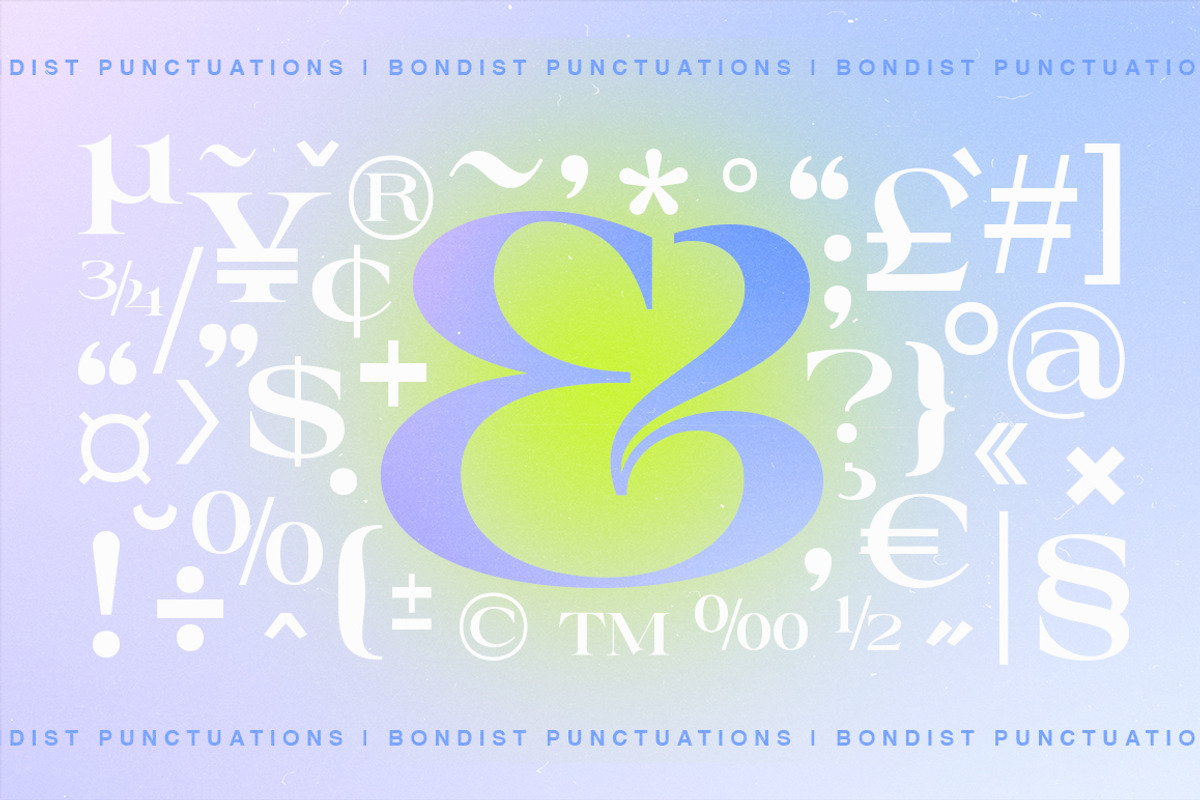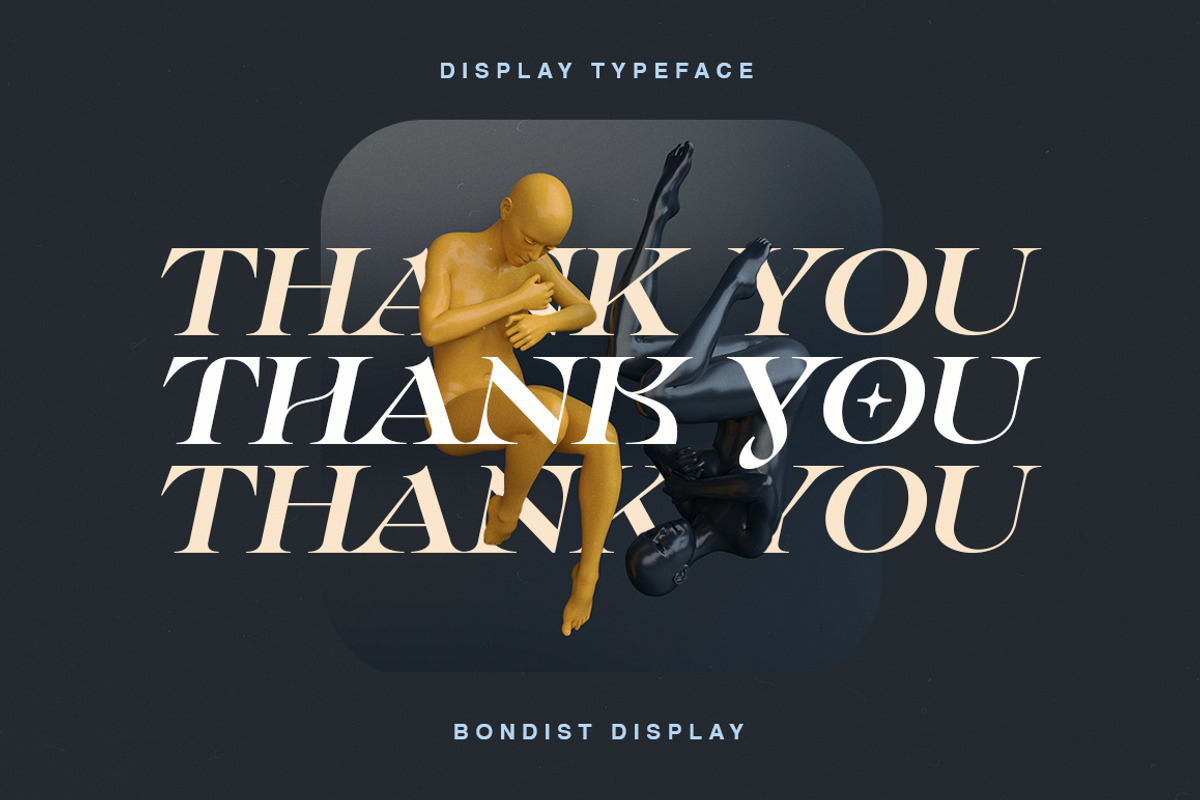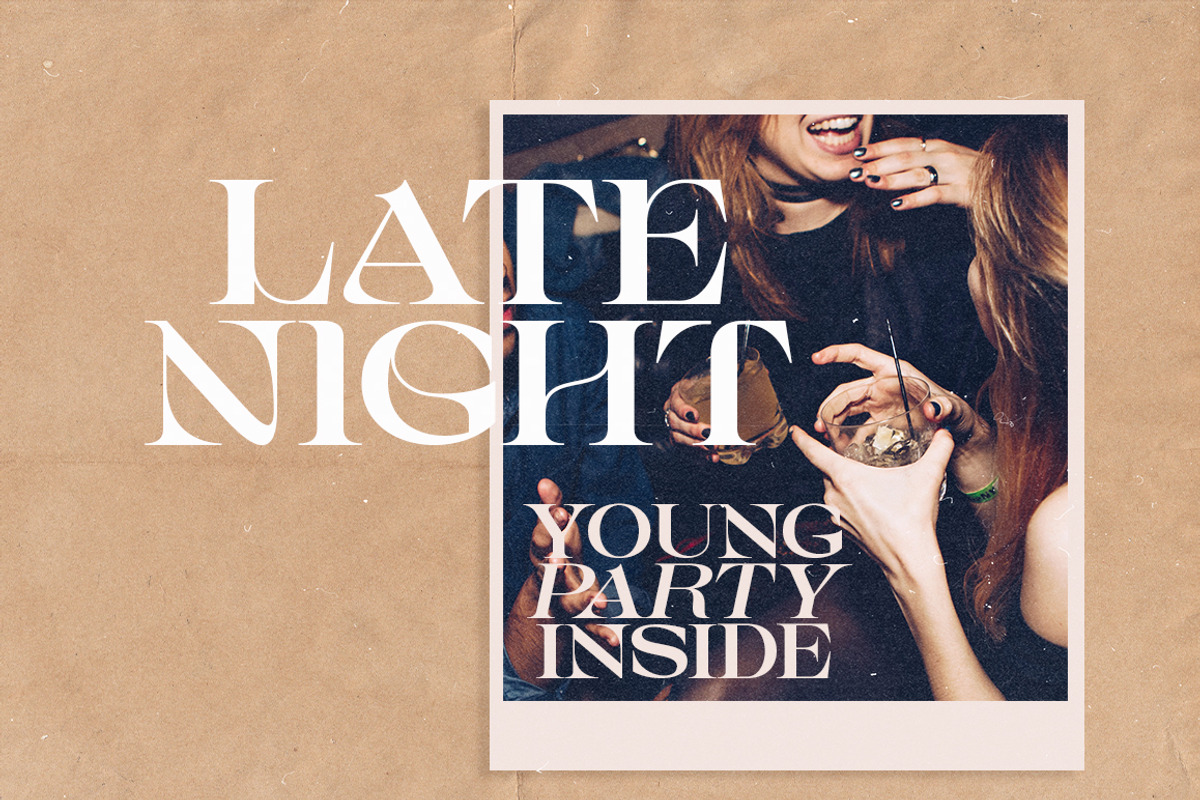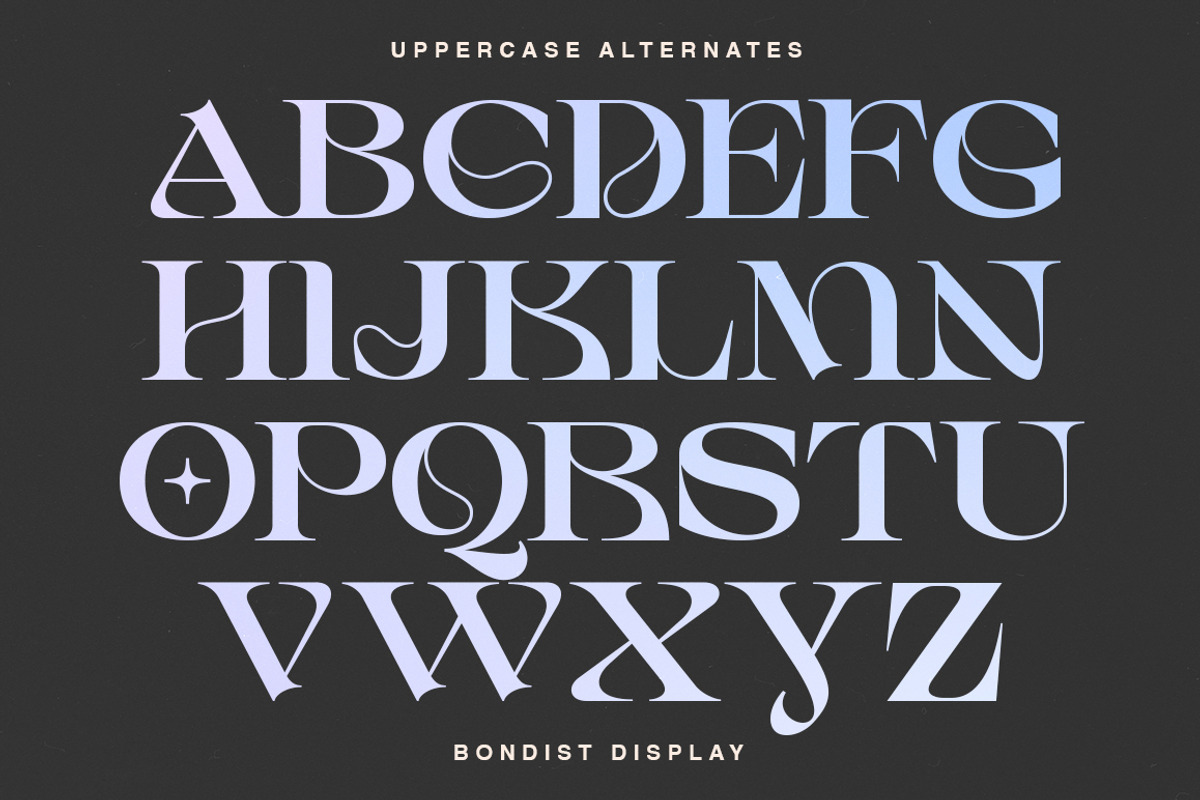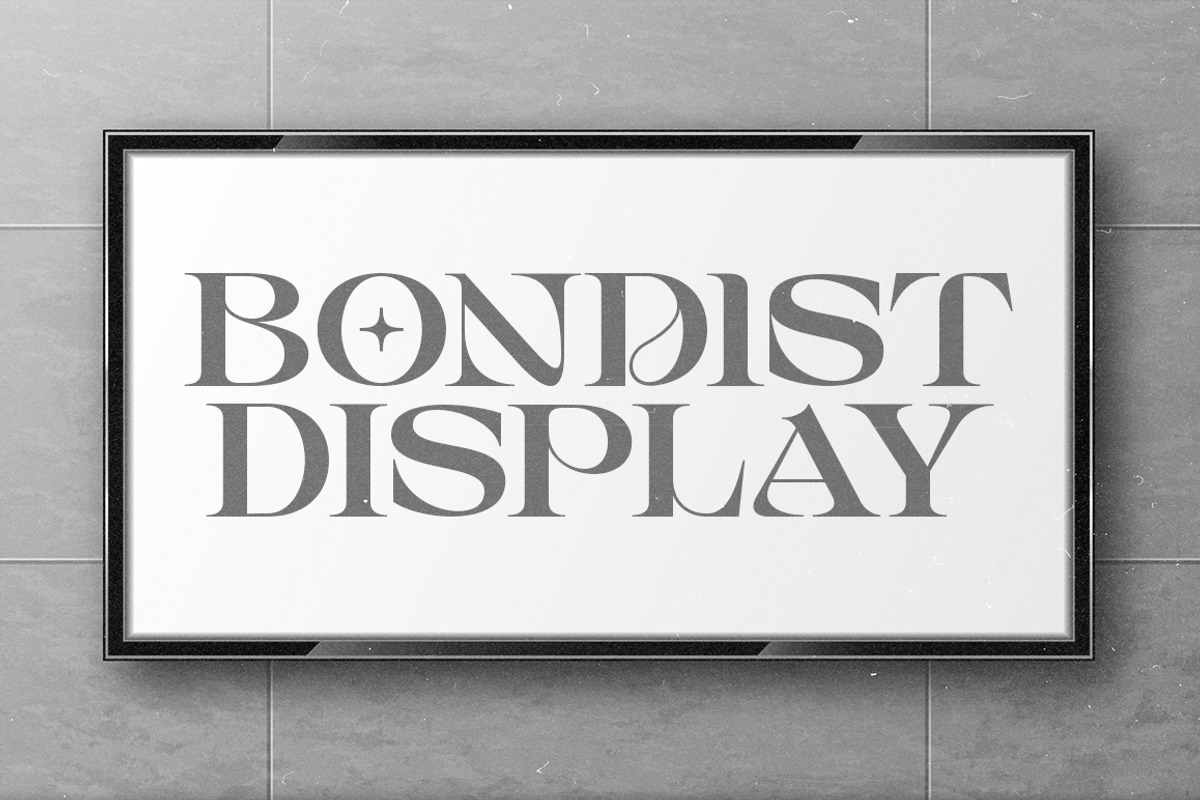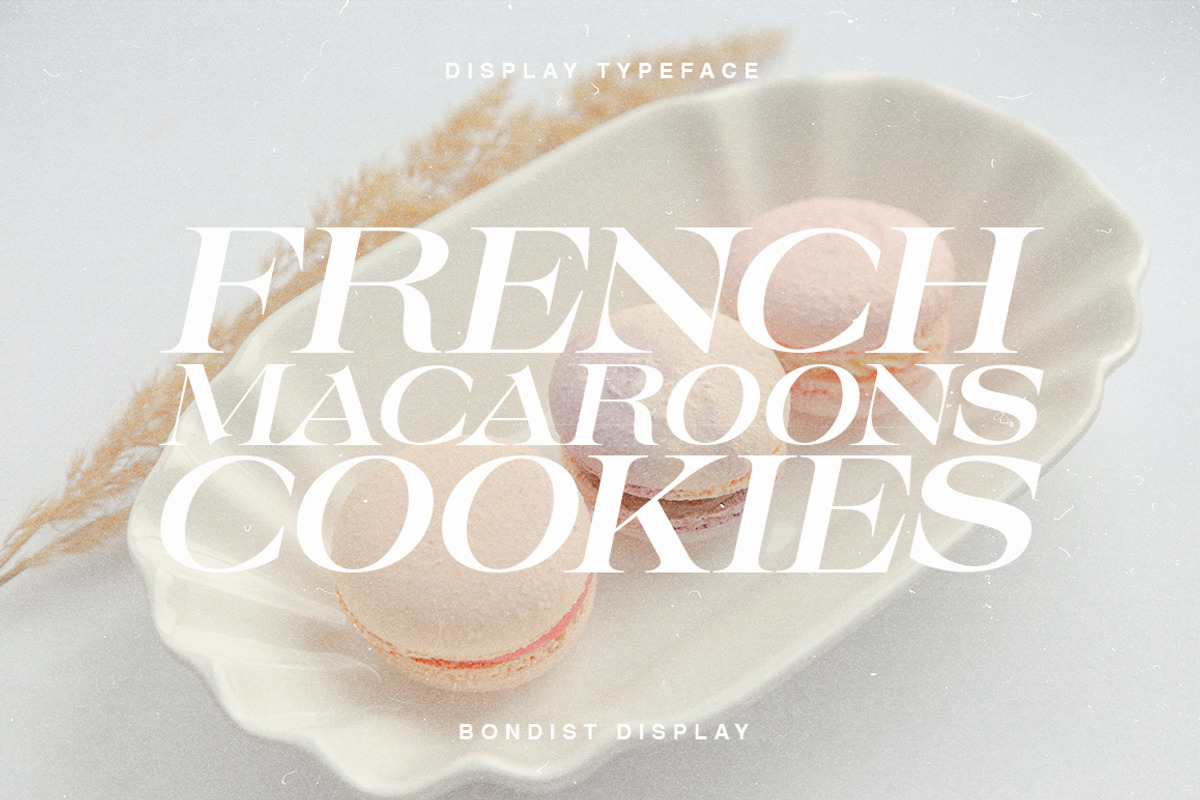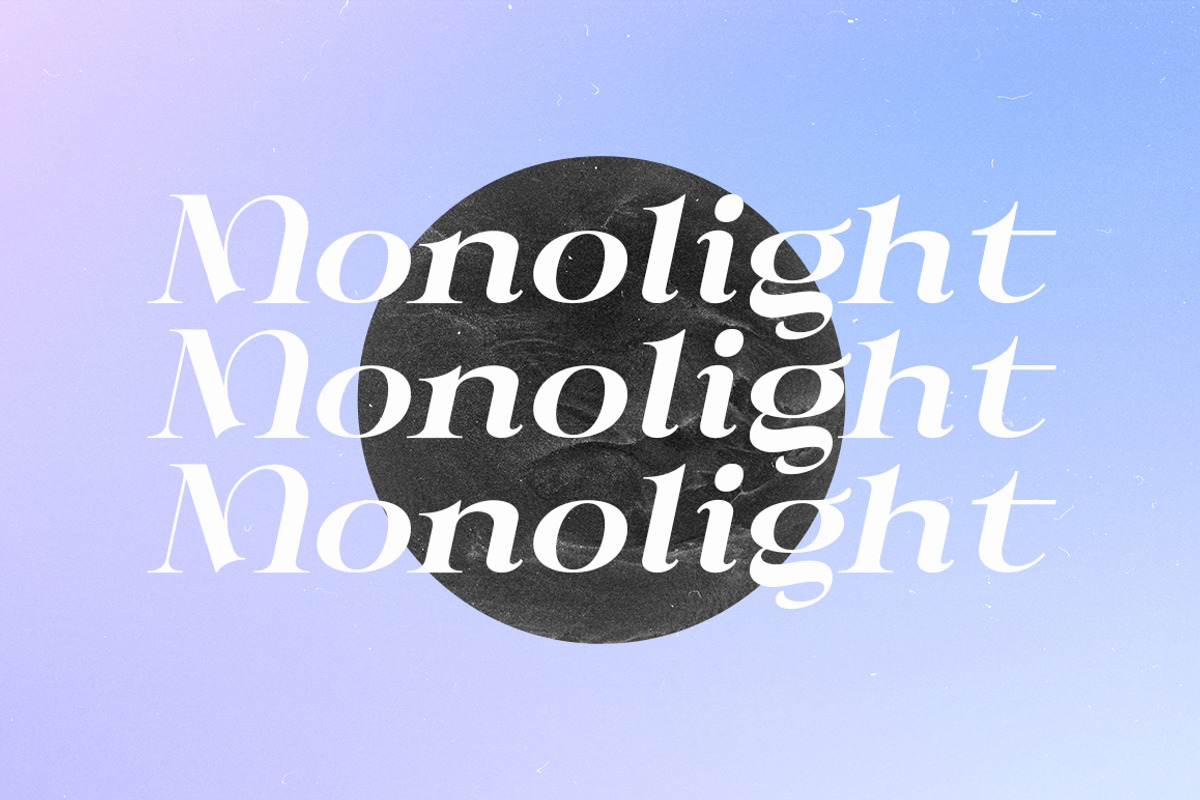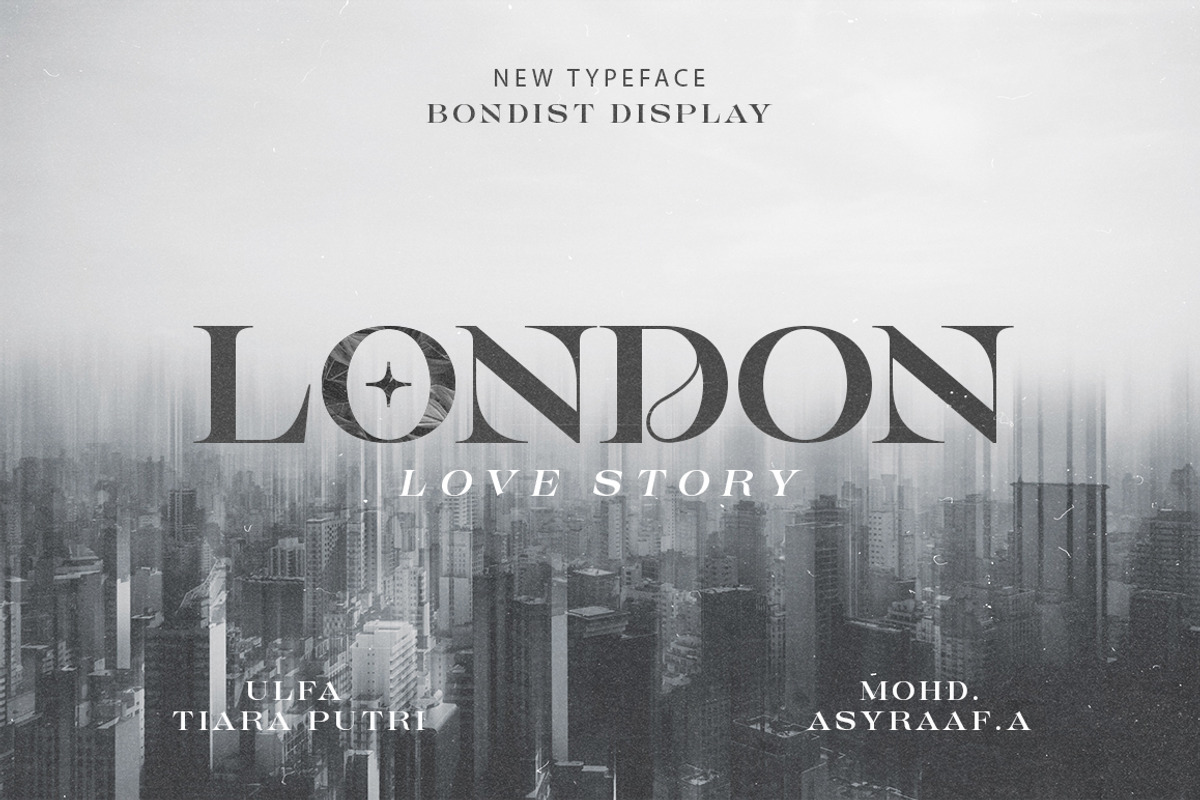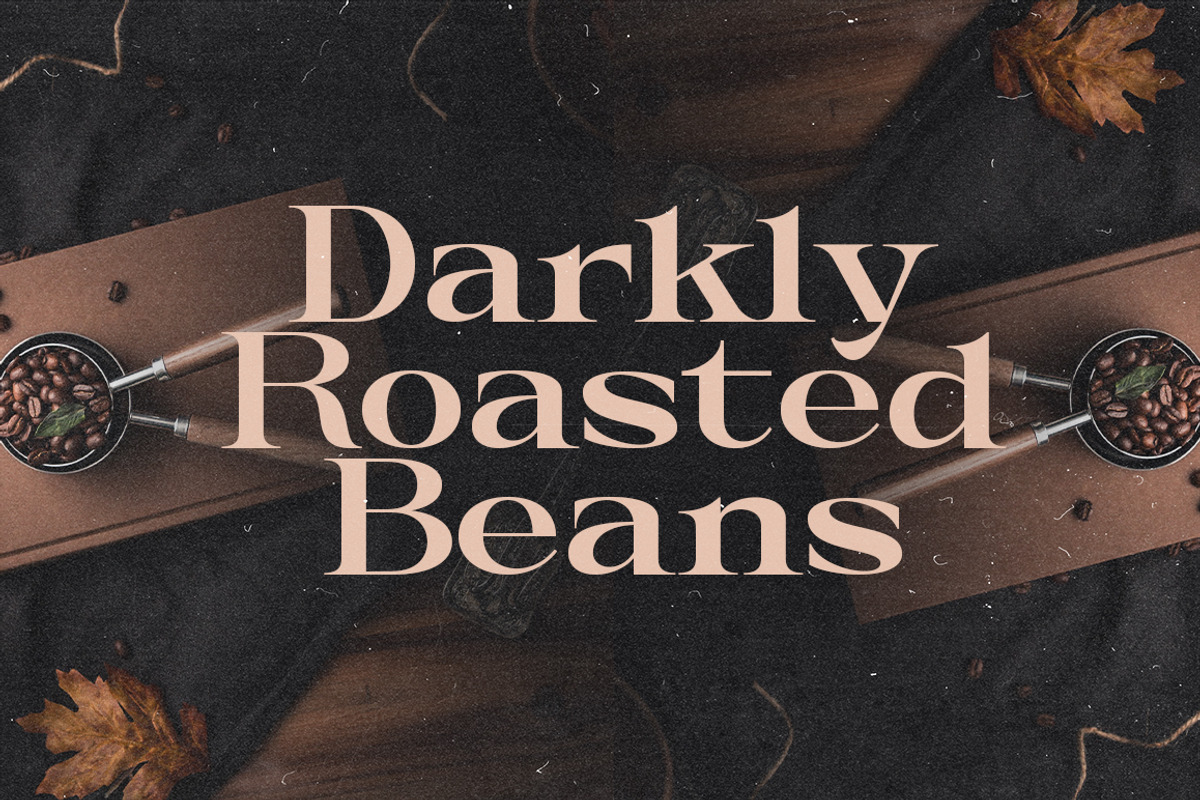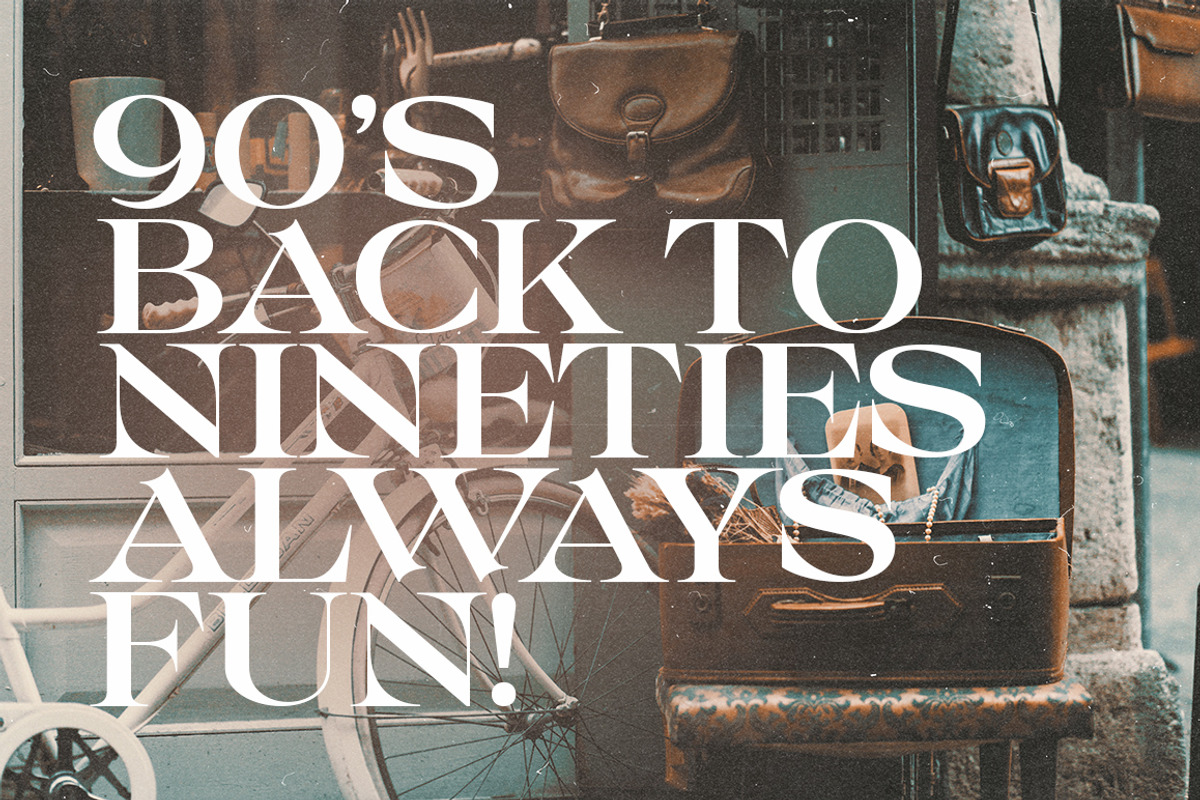
Bondist Display
Introducing Bondist Display!
A chic & modern display font.
Bondist Display is unique as it can be used for a variety of design styles. It fits in wonderfully for free-spirited, boho designs and also for more classy editorial looks!
This font is perfect for branding, logos, social media, prints, stickers, shirts, svg files and more!
There are a lot of fun stylistic alternates available to use with this font. These letters are embedded into the font file and easily accessible in programs such as photoshop and illustrator.
Bondist Display comes with a wide range of OpenType -features. Keep Standard Ligatures on in normal use. Try Discretionary Ligatures, Swash, Stylistic or Titling Alternates for custom headlines or logos.